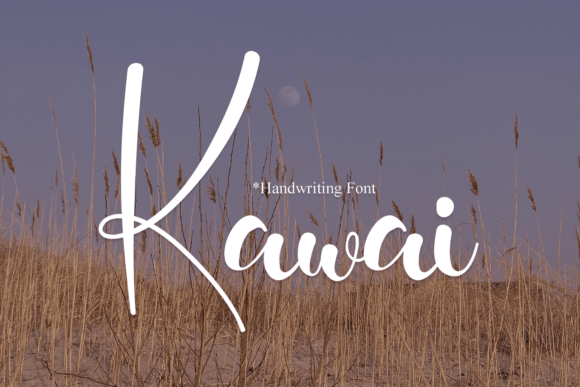
Venture into the world of exquisite typography with Kawai Font, a captivating handwritten font that exudes elegance and modernity. This enchanting creation from erik studio is a masterpiece that effortlessly blends classic calligraphic charm with a refreshing contemporary touch. Immerse yourself in a world of boundless creativity as you unleash the beauty of Kawai Font in your fashion design endeavors.
With its graceful strokes and impeccable attention to detail, Kawai Font exudes an air of sophistication that elevates your designs to new heights. From delicate logos that whisper elegance to captivating headers that command attention, Kawai Font possesses the versatility to transform your vision into a tangible masterpiece.
Experience the allure of timeless beauty as Kawai Font dances across your designs, enchanting your audience with its timeless appeal. Its enchanting curves and expressive lines capture the essence of artistry, leaving an indelible mark on every project it graces.
Indulge in the joy of self-expression as Kawai Font becomes your creative companion, whispering sweet nothings into the ears of your audience. Its captivating allure weaves a spell of elegance, drawing them into a world of visual delight where fashion and art harmoniously intertwine.
Fall in love with the enchanting world of Kawai Font today and unlock the gateway to a new realm of typographic possibilities. Let your imagination soar as you explore the limitless potential of this remarkable font, transforming your designs into breathtaking works of art. Embark on a journey of creative exploration and experience the magic of Kawai Font!